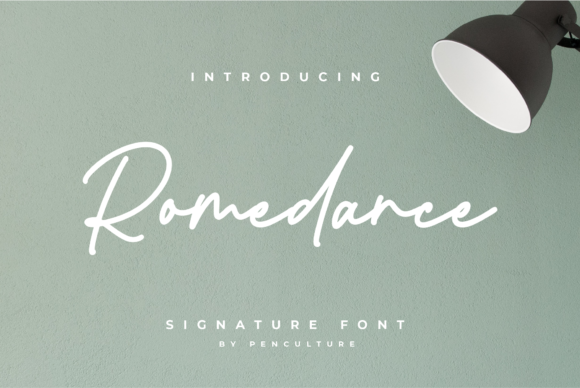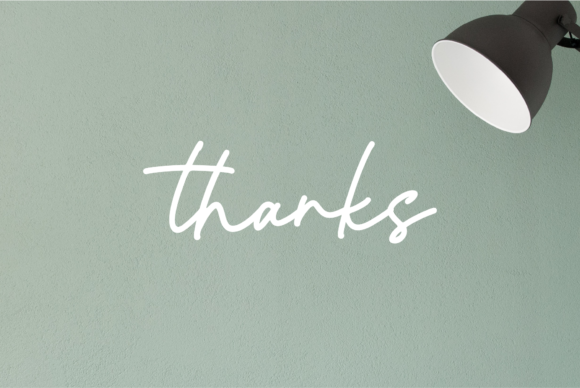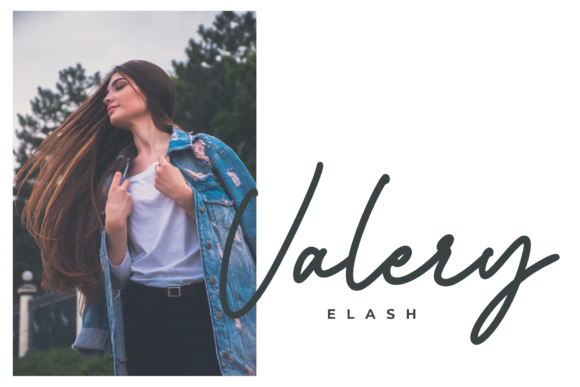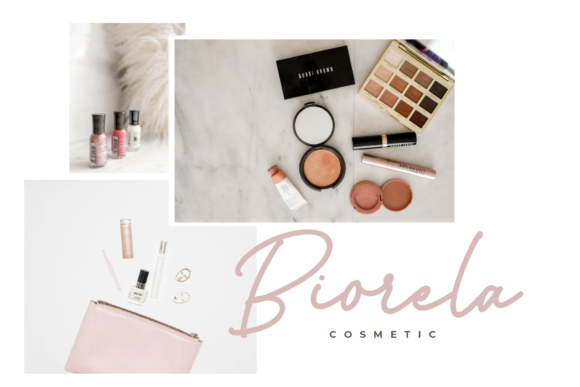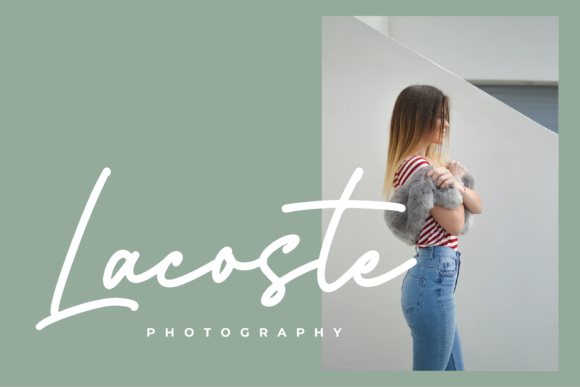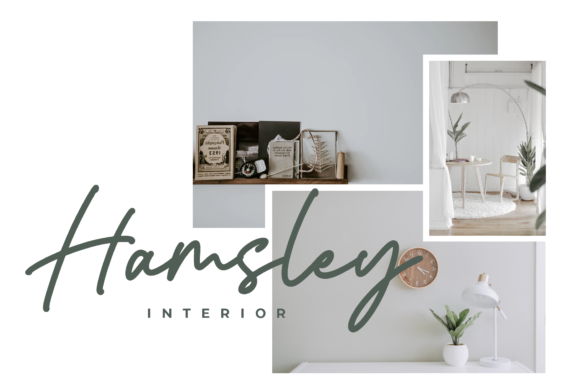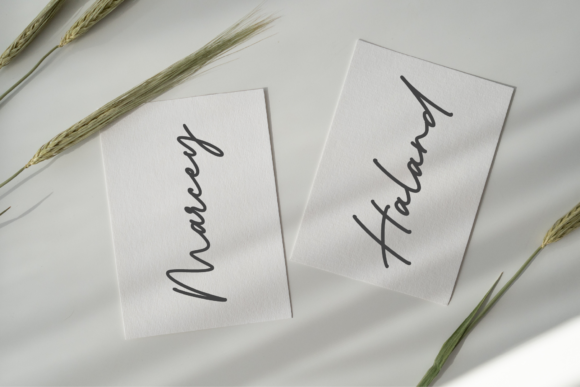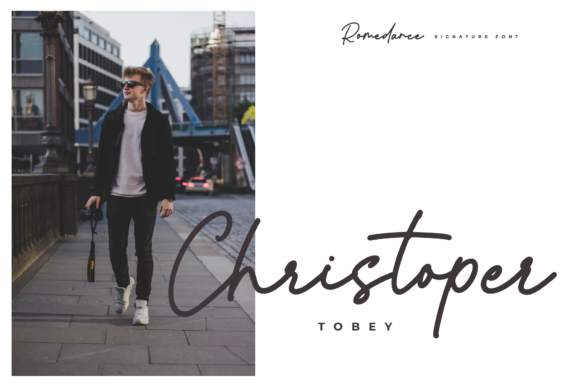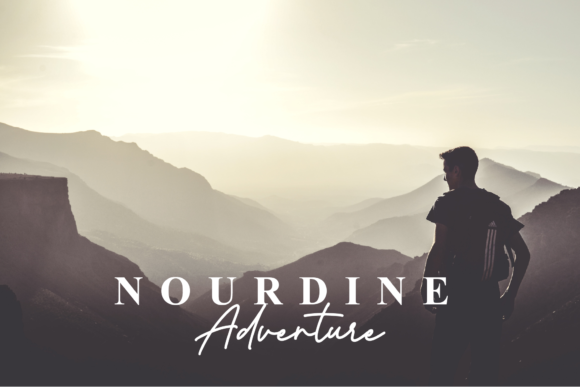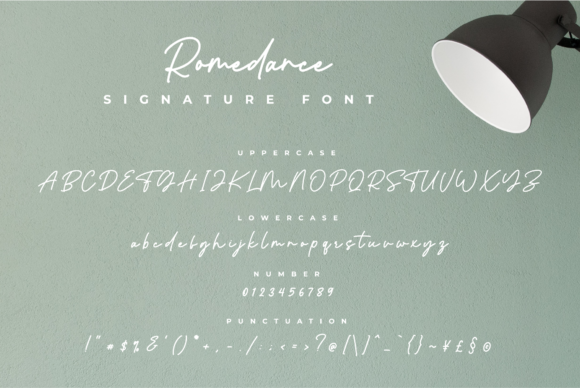
Romedance Font
About Romedance Font
Romedance results out of a stunning pairing of a brush pen and pencil that makes it look incredibly endearing and authentic. Use this gorgeous and unique script to bring any DIY project to life!